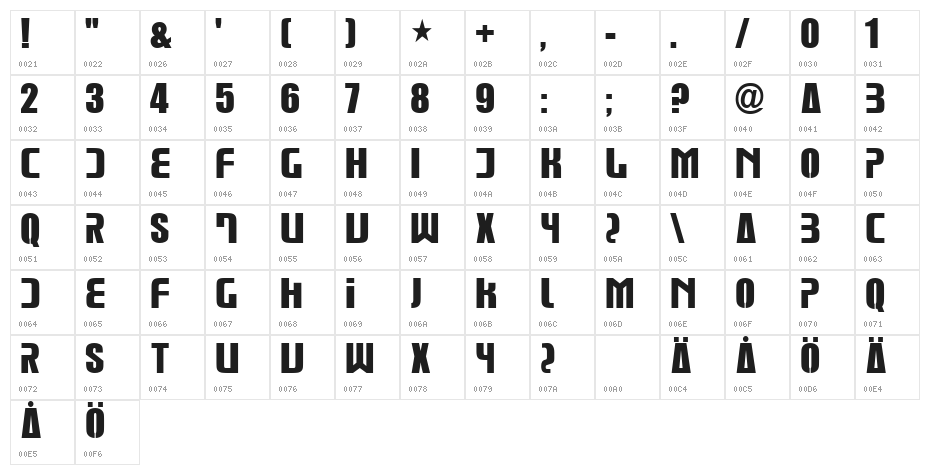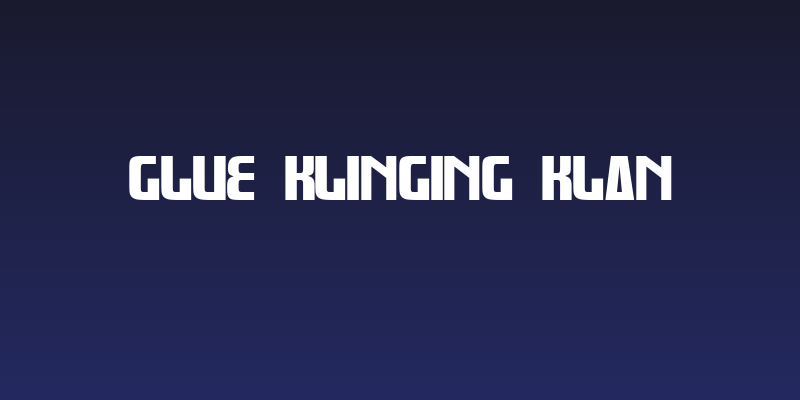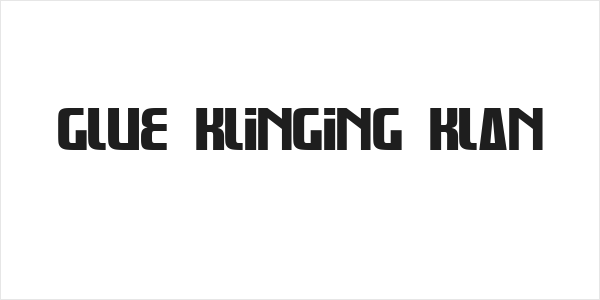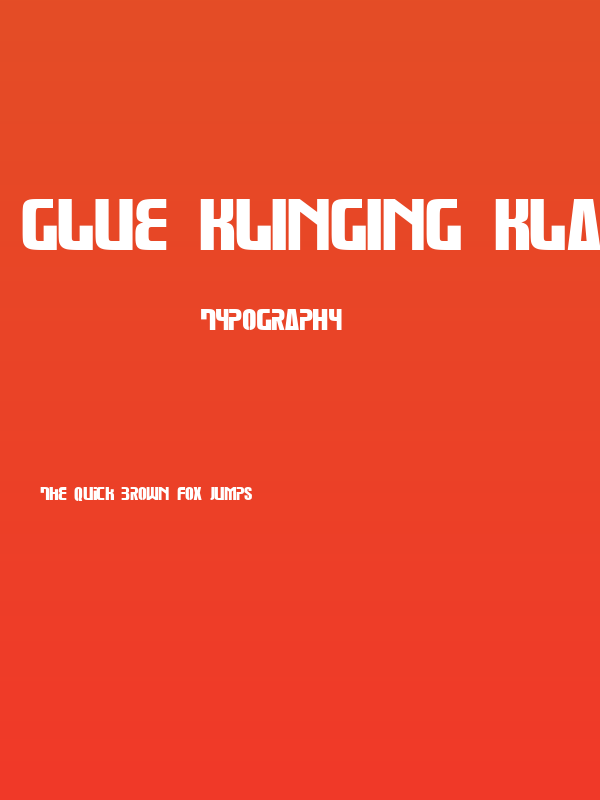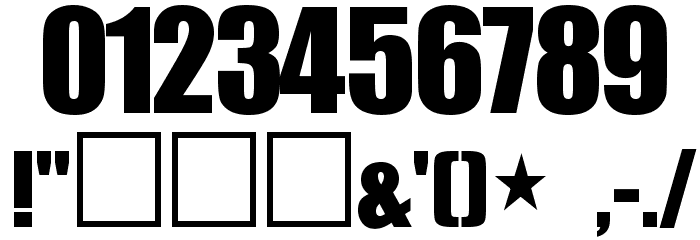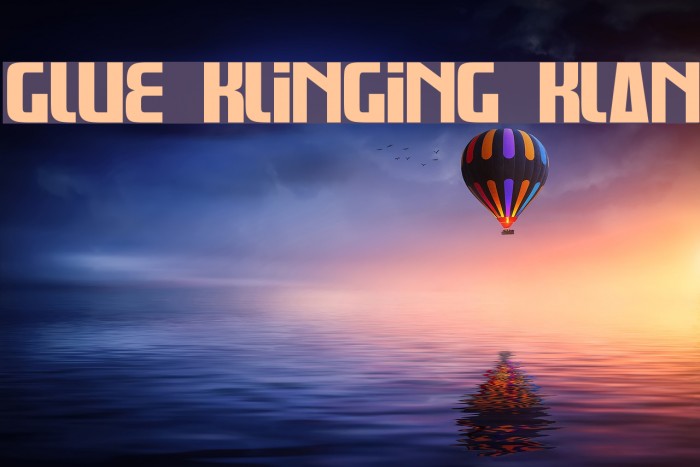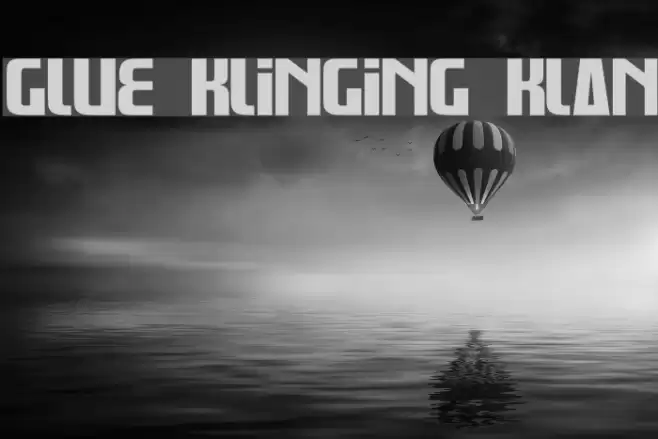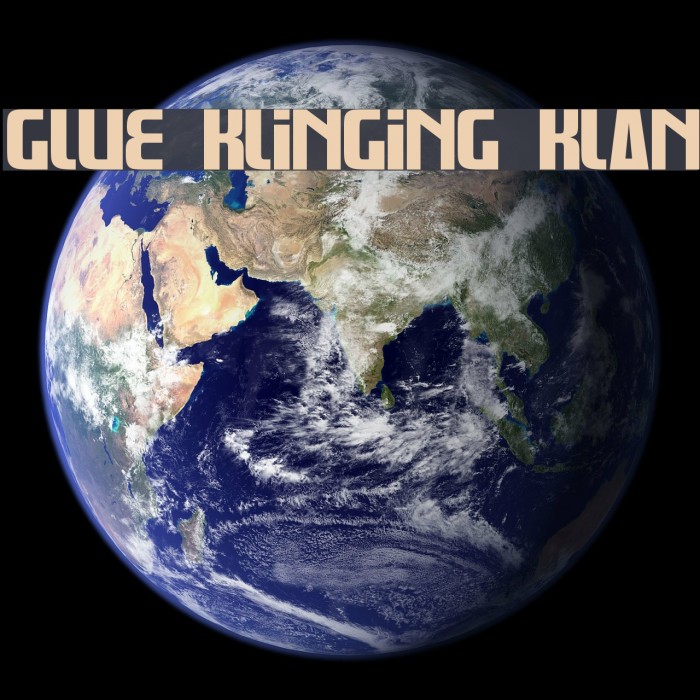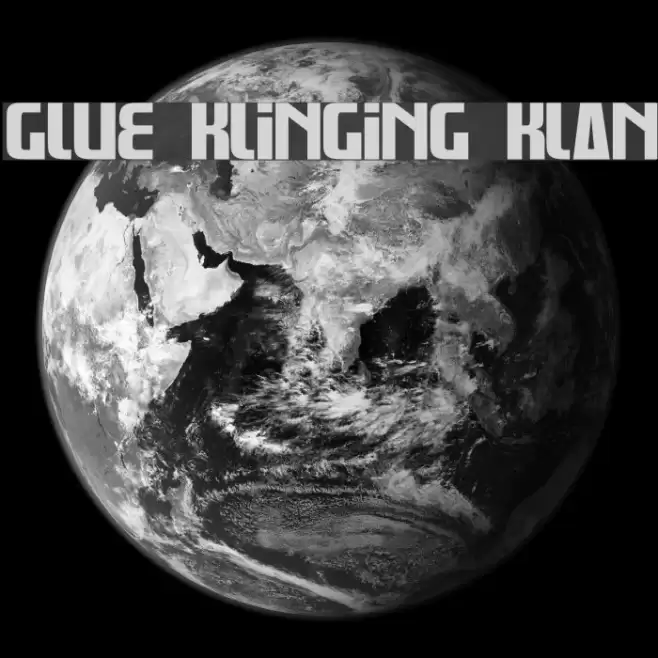
Glue Klinging Klan Font
Glue Klinging Klan Description
This font features a bold and geometric style with strong, angular lines and a modern aesthetic. The characters are uniformly thick, giving it a robust and impactful appearance. The uppercase letters are particularly striking, with a futuristic feel that is both eye-catching and distinctive. The numbers and special characters maintain the same boldness and geometric structure, ensuring consistency throughout the typeface. The overall design is clean and uncluttered, making it suitable for a variety of applications where a strong visual presence is desired.